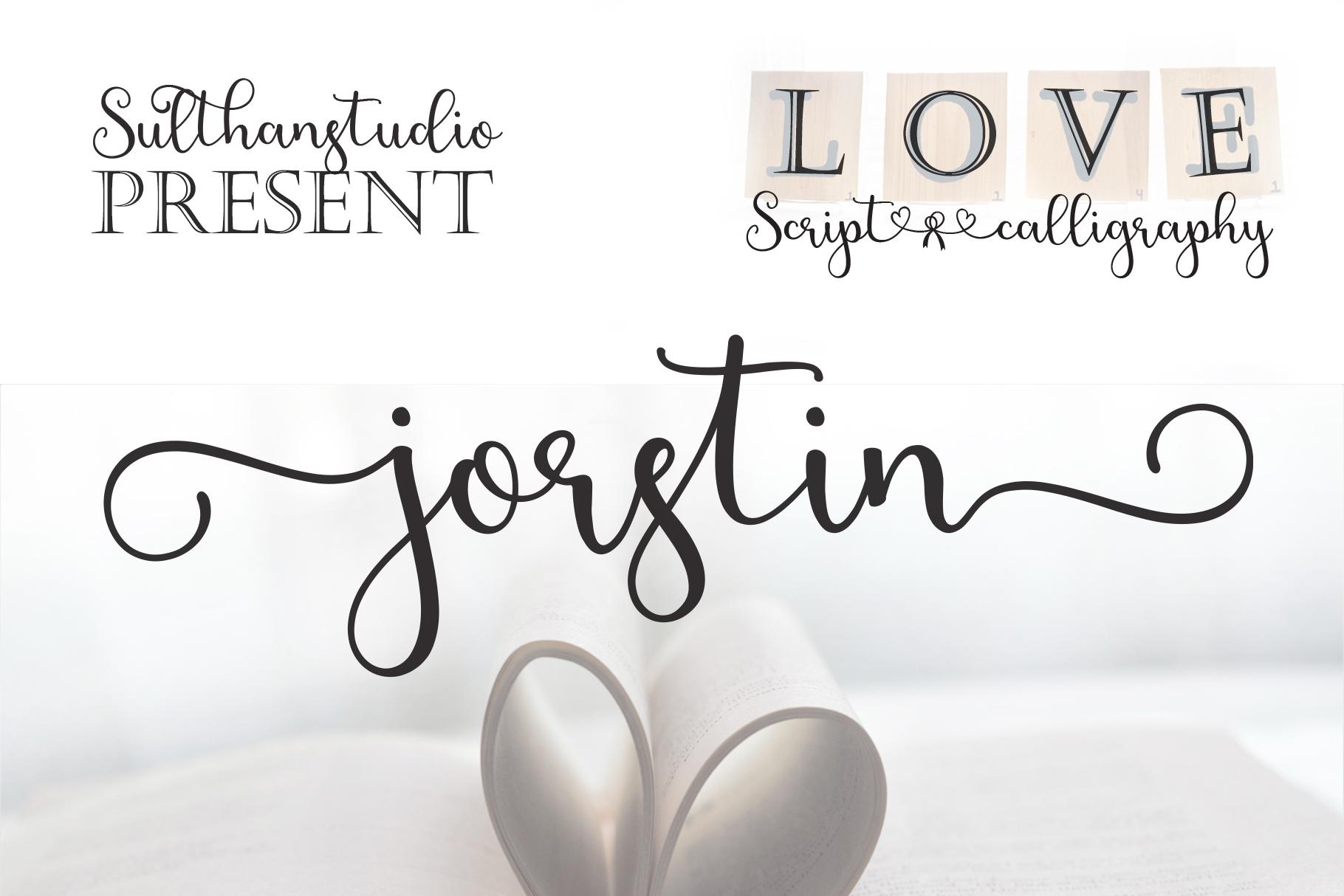
Jorstin Font Description
Jorstin is a new, fresh, funny, interesting, cute calligraphy font with a heart that can be connected. Great for greeting cards, branding materials, business cards, quotes, posters, and more!
This font is PUA encoded which means you can access all of the glyphs and swashes with ease!